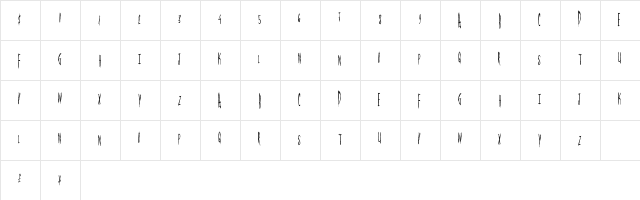
MagicalSpringtime Regular
| Foundry | Xerographer Fonts |
| Designer | Xerographer Fonts Max Infeld |
Design Context for MagicalSpringtime Typeface
MagicalSpringtime is a composed and adaptable typeface that performs quietly and consistently across a wide range of design contexts.